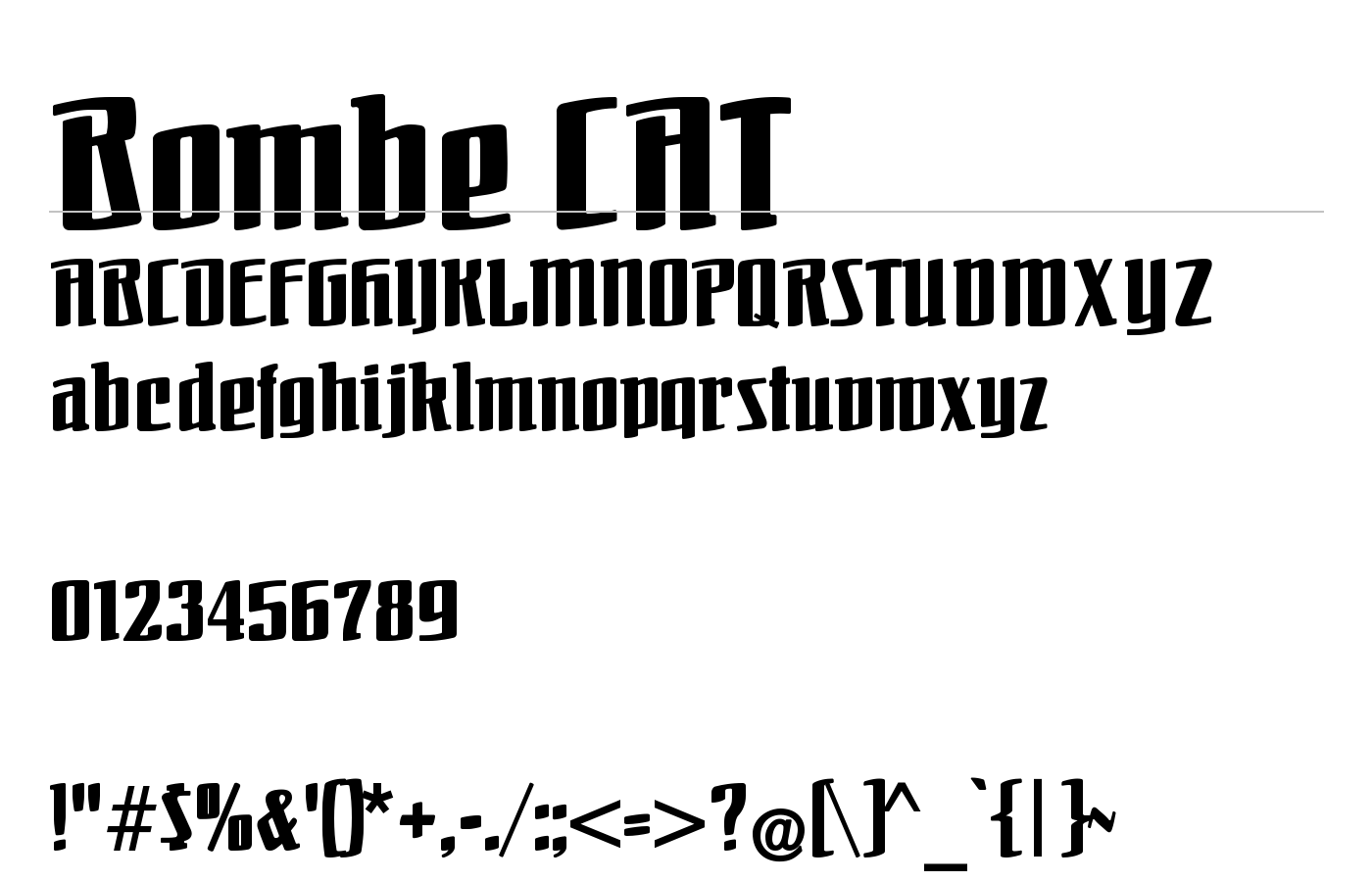
Bombe CAT is a bold, condensed sans-serif font with a strong, slightly angular character and a tall x-height, giving it a modern and striking appearance. Its unique geometric shapes and sharp edges make it ideal for attention-grabbing headlines, branding, and display use, especially where a contemporary and edgy feel is desired. This font works well for logos, posters, and fashion or lifestyle projects that need a distinctive, confident voice.
Bombe CAT Font
About Bombe CAT Font
| Font family | Bombe CAT Font |
| Designer | Peter Wiegel |